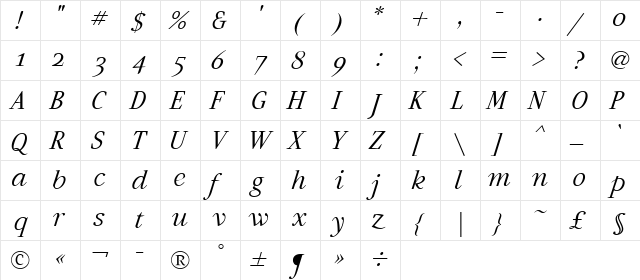
Artemius SN Light TT Regular Italic Font Preview
Design Context for Artemius SN Light TT Typeface
Artemius SN Light TT is a composed and adaptable typeface that performs quietly and consistently across a wide range of design contexts. Its italic angle brings a sense of urgency and motion to the letterforms. Its slender proportions lend an understated elegance to any composition.